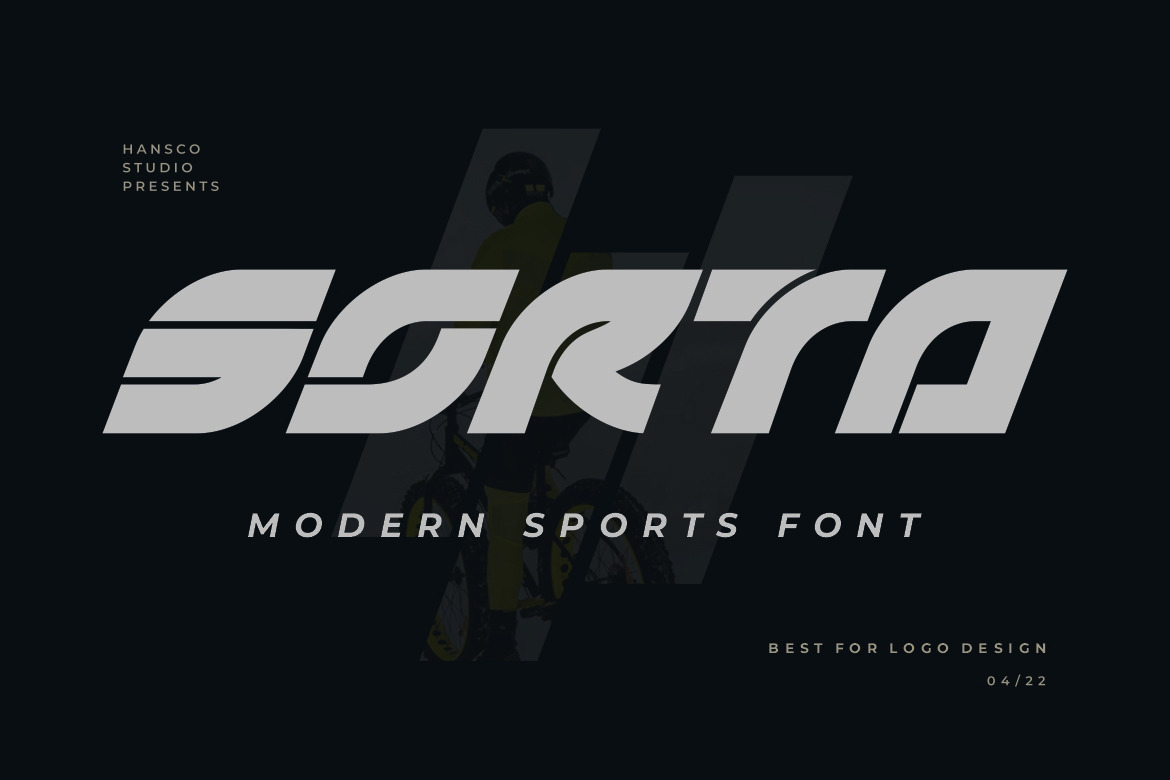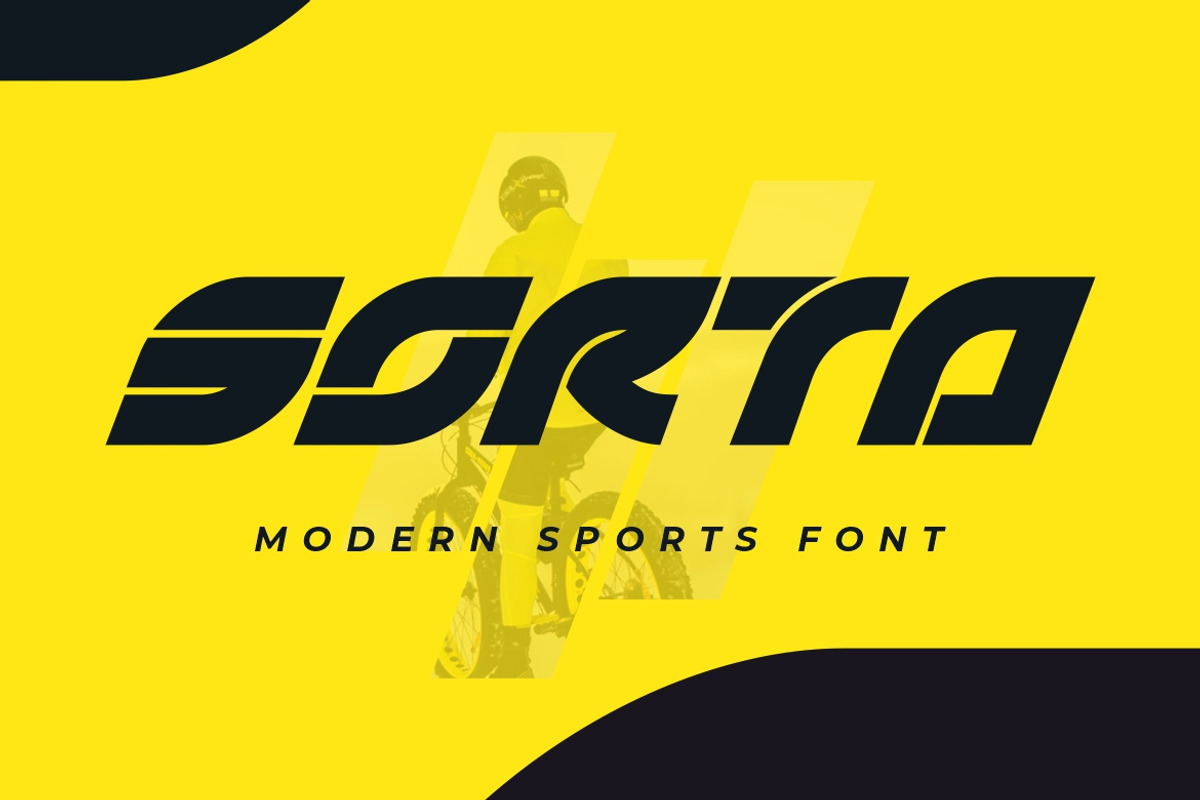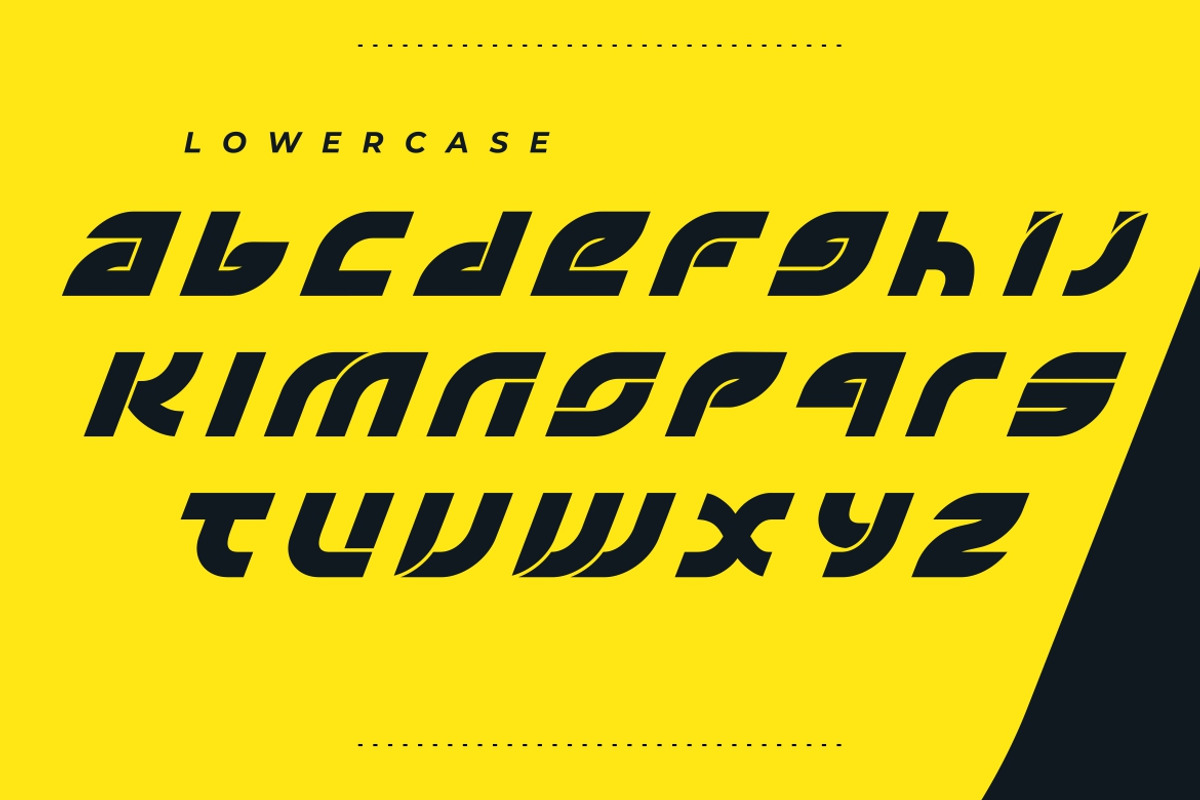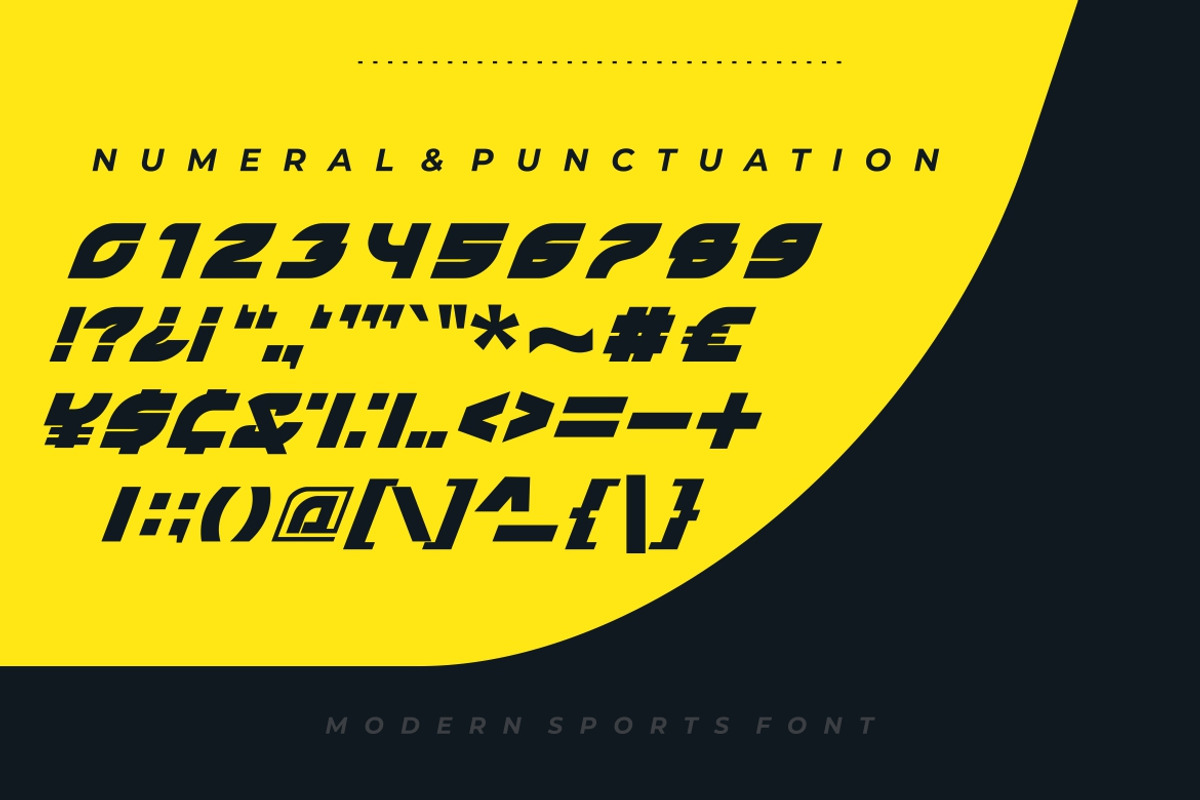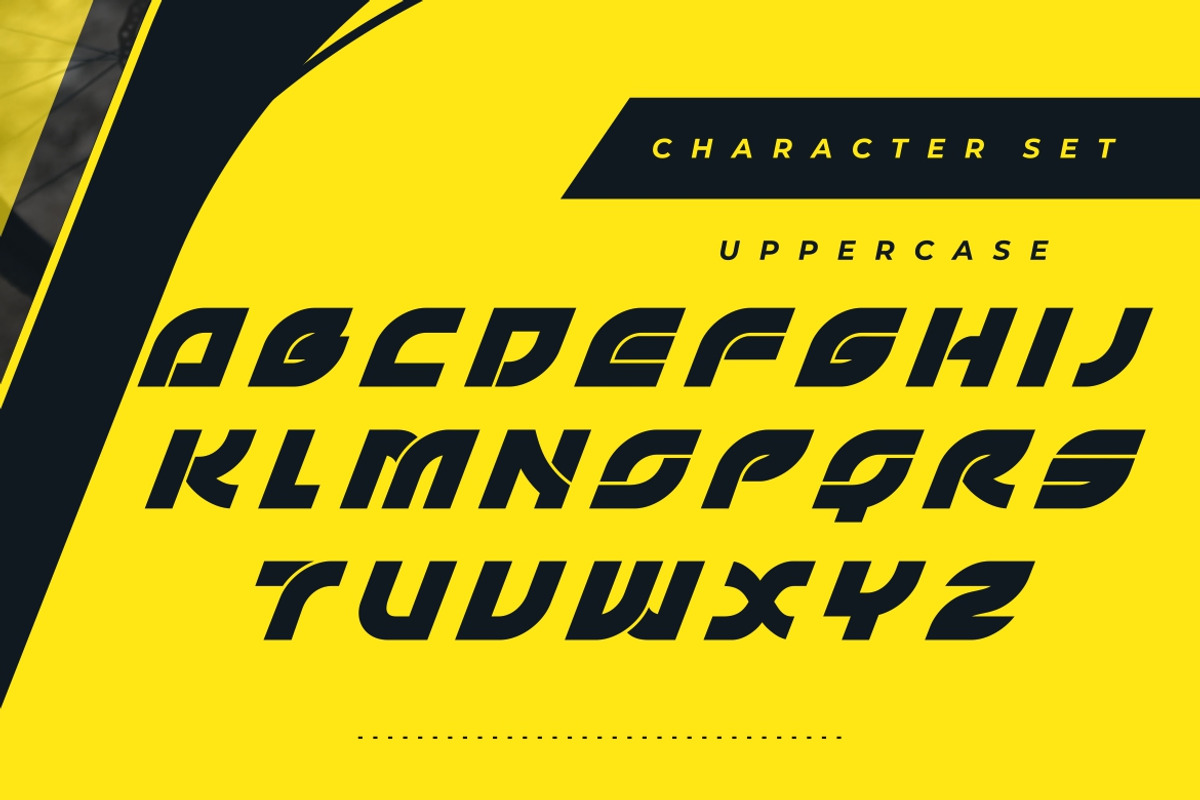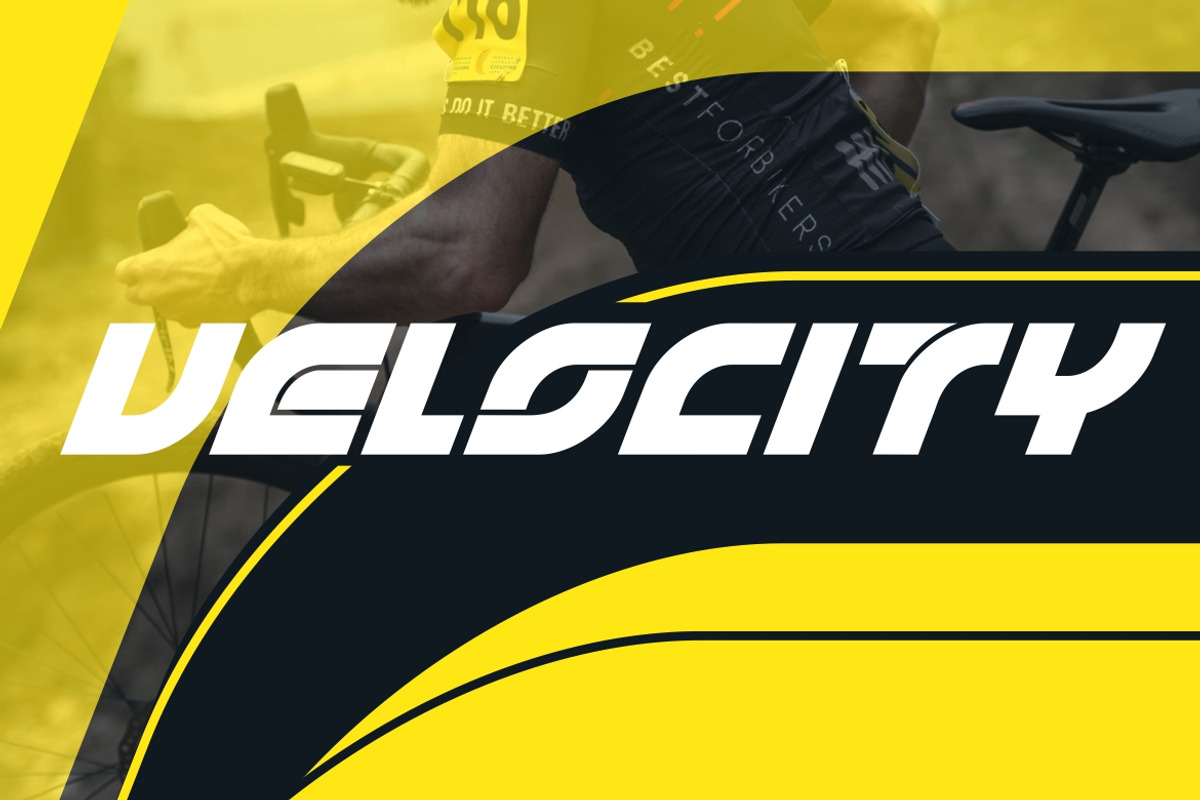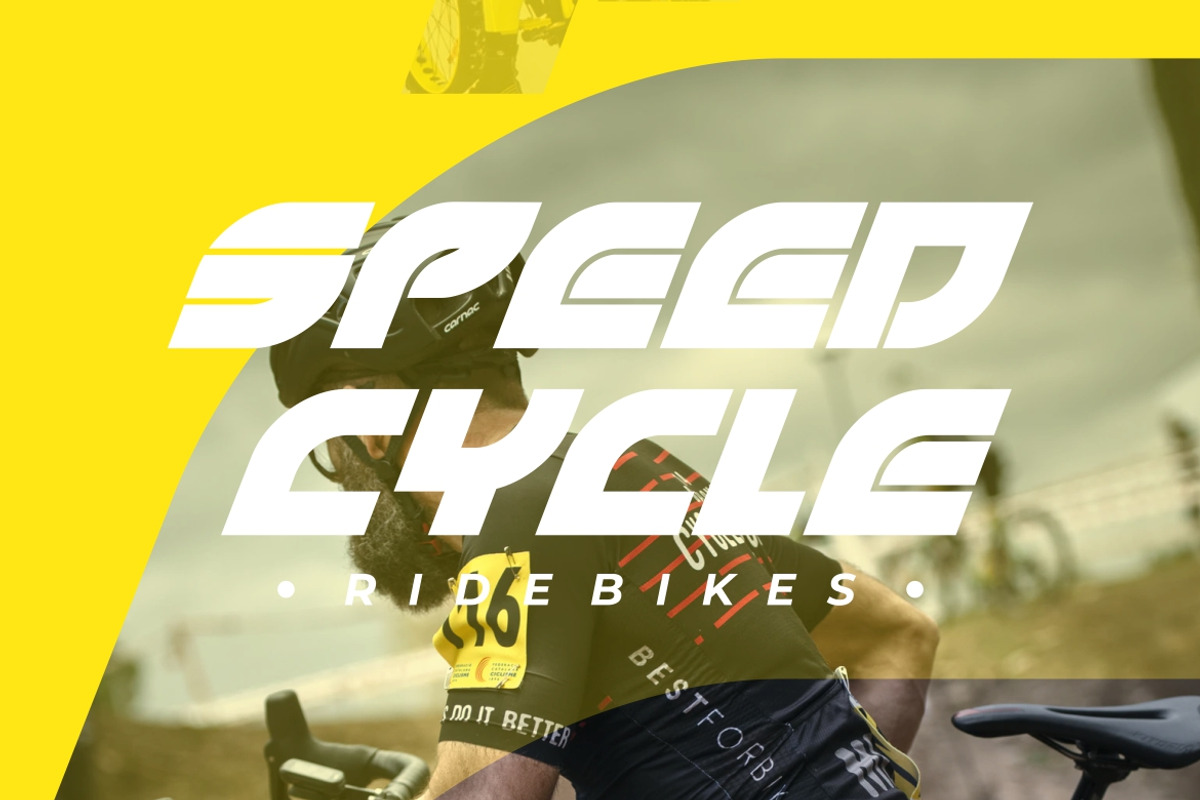
Sorta - Futuristic Font
Sorta a sharp italic and bold font with unique style that will make your design looks modern and futuristic. The basic visual characteristic of typography is that the characters are shaped like leaves and have sharp corners in each letter, so this font is very suitable to be applied to projects that carry an eco-friendly feel. You can use this font for any purpose, especially to make logotype like a technology or sports logo brand, headlines, e-sports logo, t-shirt, label, name card, badge, poster, sci-fi and many more. This typeface is comes in uppercase, lowercase, punctuation, symbols, numerals, etc also support multilingual.